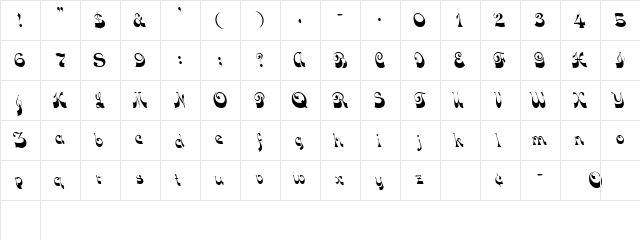
DOMINIC Regular
Design Context for DOMINIC Typeface
DOMINIC is a composed and adaptable typeface that performs quietly and consistently across a wide range of design contexts.